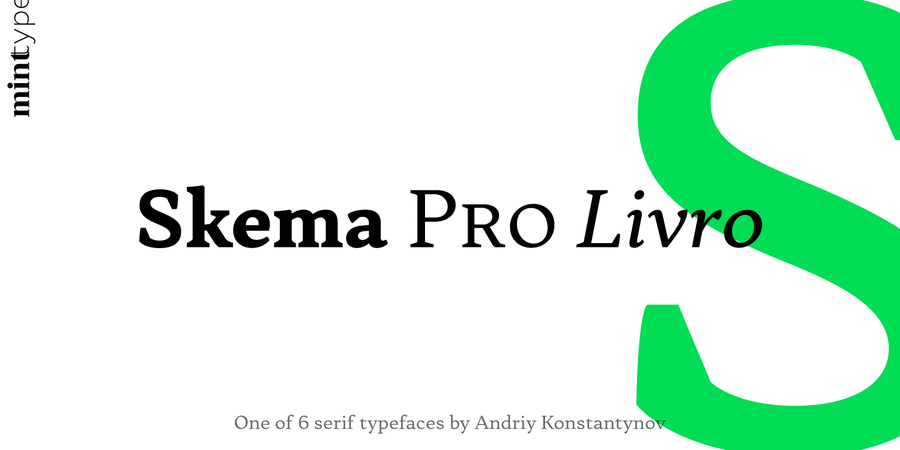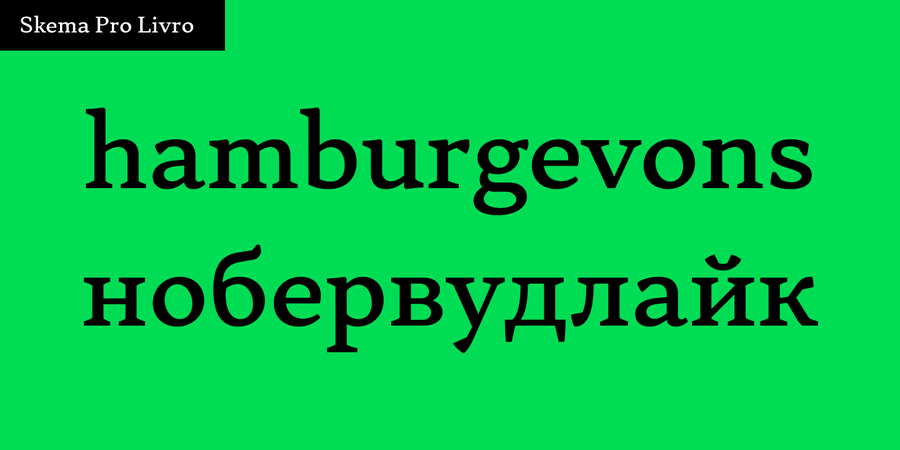
About Skema Pro Livro is a low contrast, low x-height typeface with inclined axis. It is designed to work in books, where long ascenders and descenders along with increased line-spacing aid comfortable reading.
Skema Pro is a versatile system of 6 serif typefaces – each bearing a distinct character and purpose. Together they form a huge superfamily of 84 fonts to fit any imaginable task.
Font family Skema Pro was designed and released by Andriy Konstantynov in Mint Type foundry in 2017.